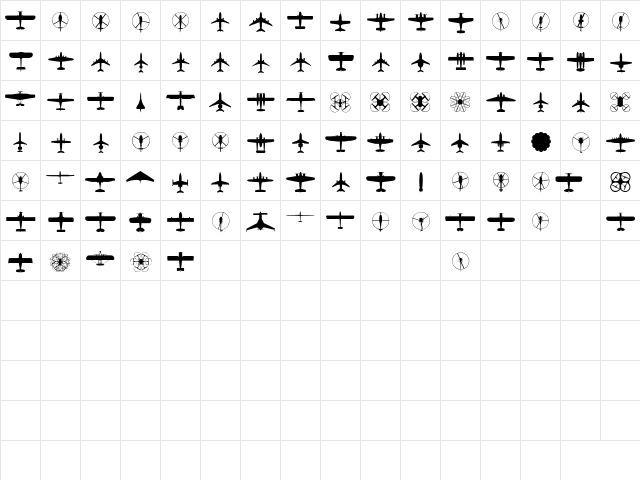
Aircraft Identification Regular
Design Context for Aircraft Identification Typeface
Aircraft Identification is a composed and adaptable typeface that performs quietly and consistently across a wide range of design contexts.